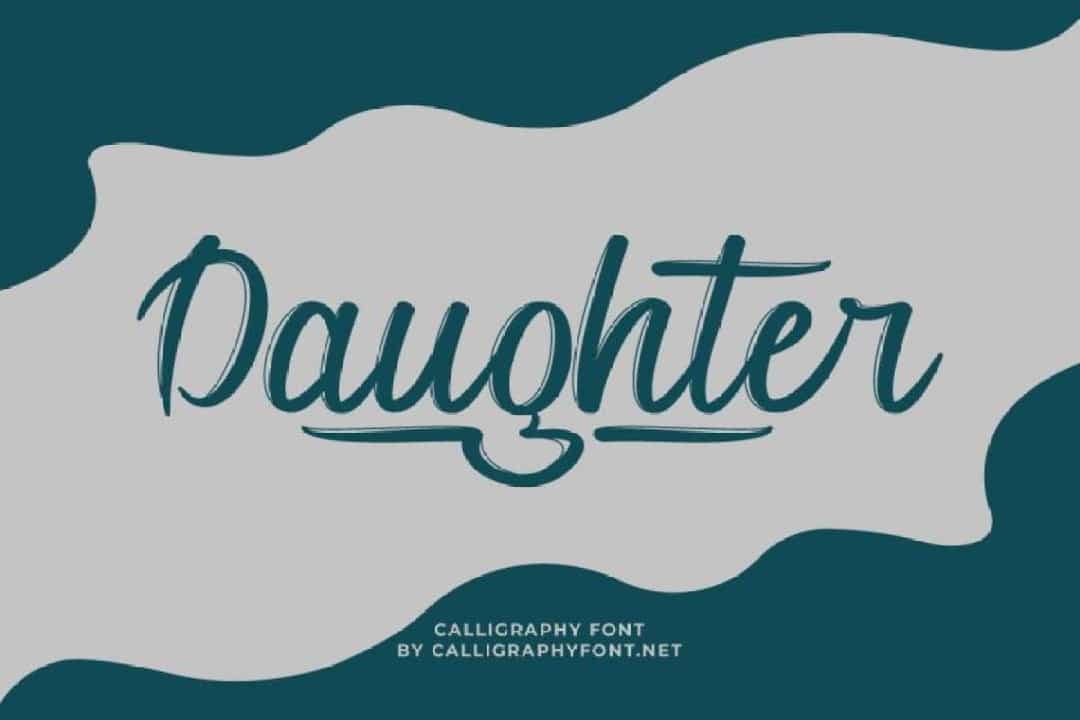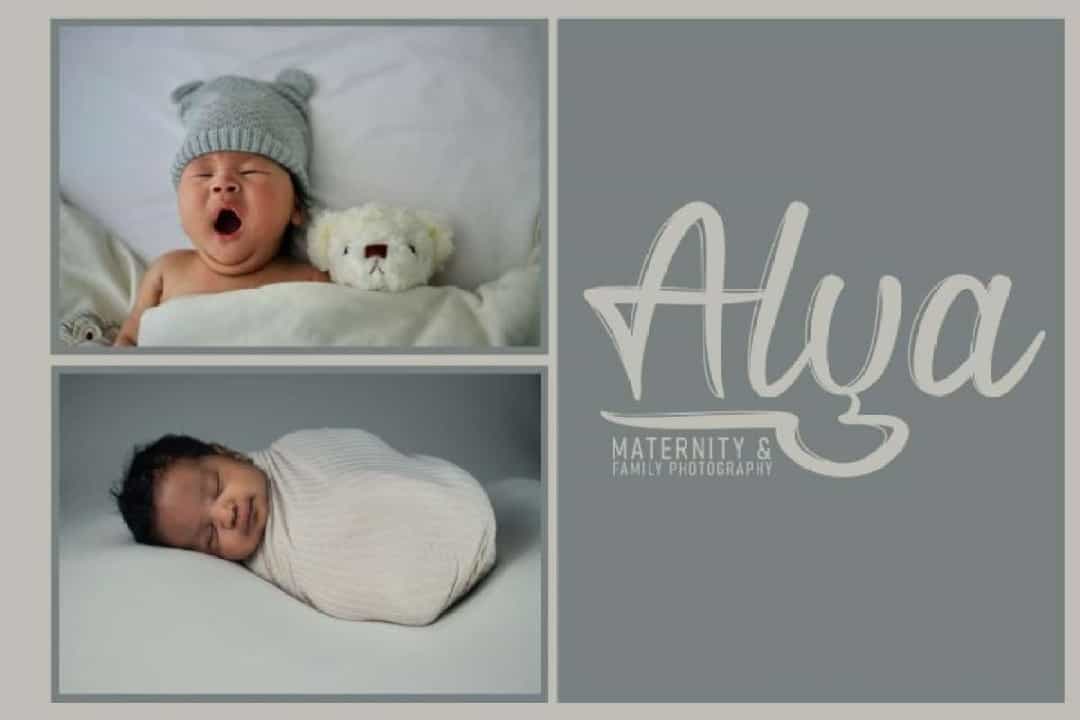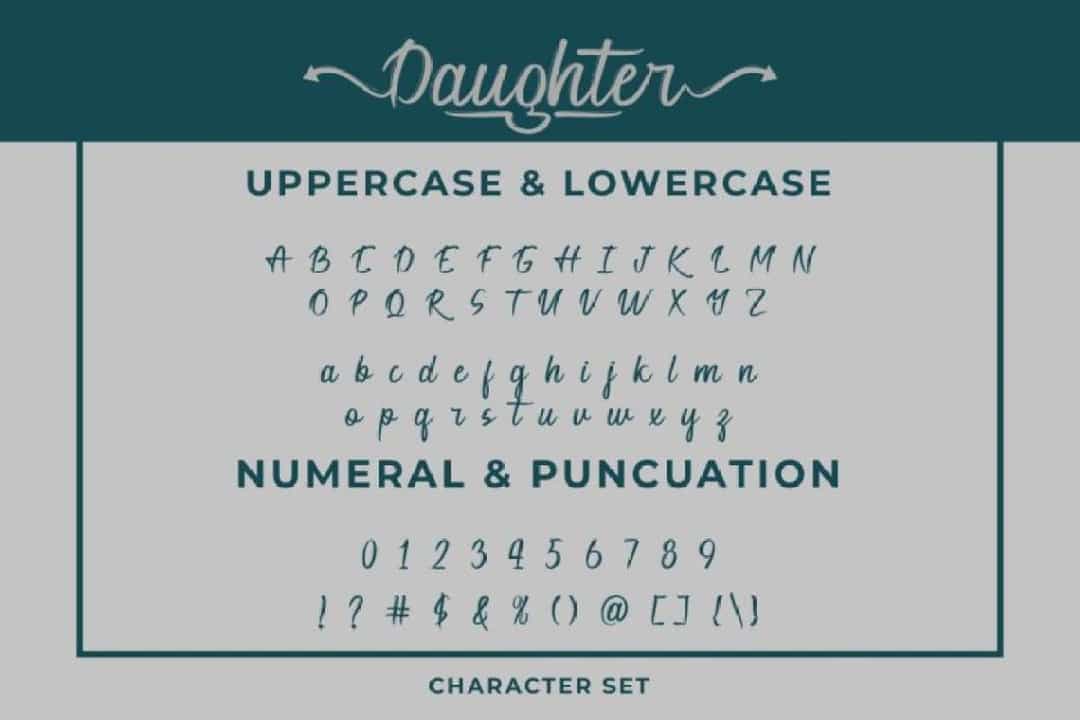
Daughter is an elegant brush calligraphy script font with distinctive style. Featuring the most elegant script to draw the eye and create appeal, its design is both stylish and classic – featuring timeless elegance with classic features for added sexiness! This new handwritten brush script also embodies amazing looks!